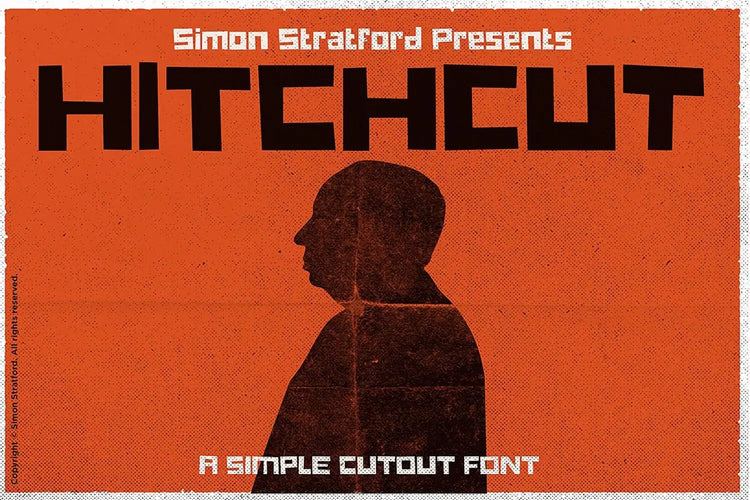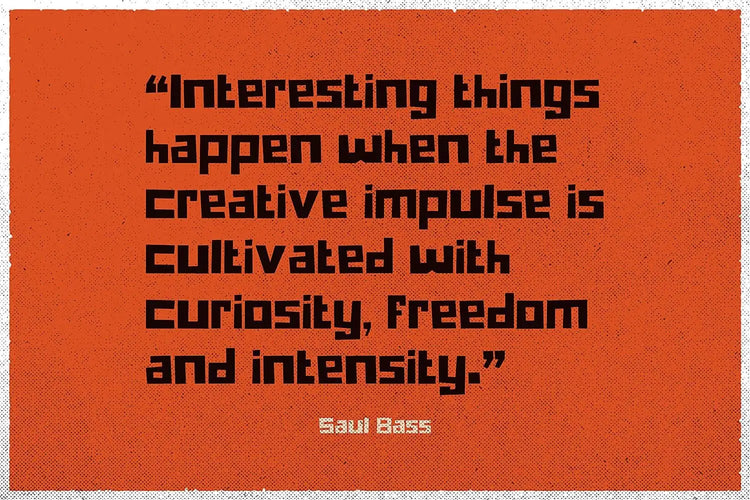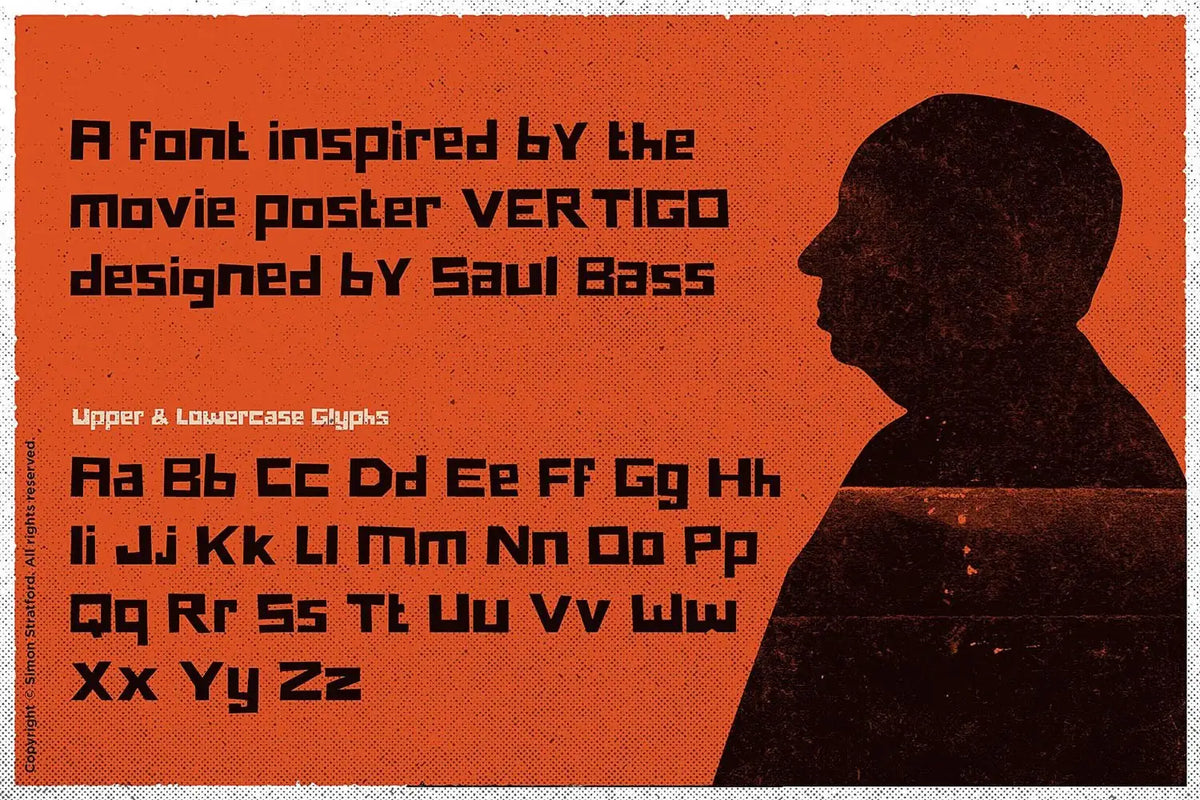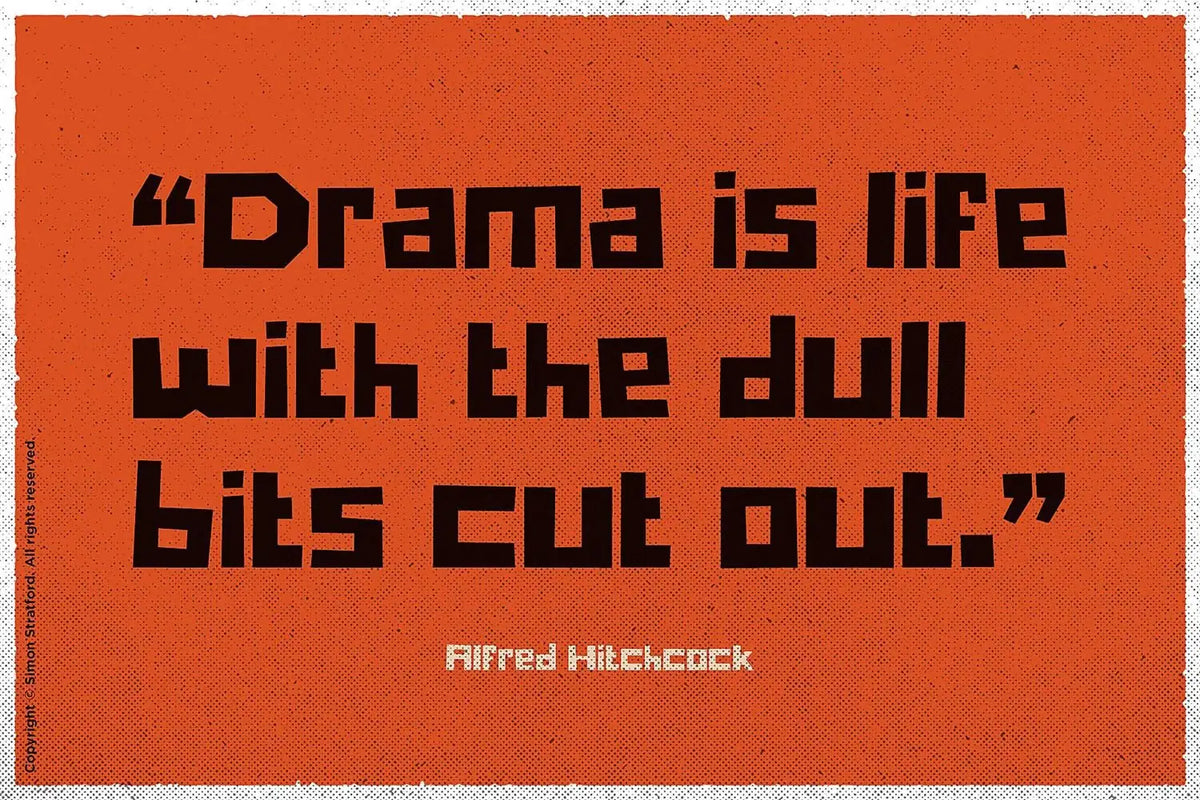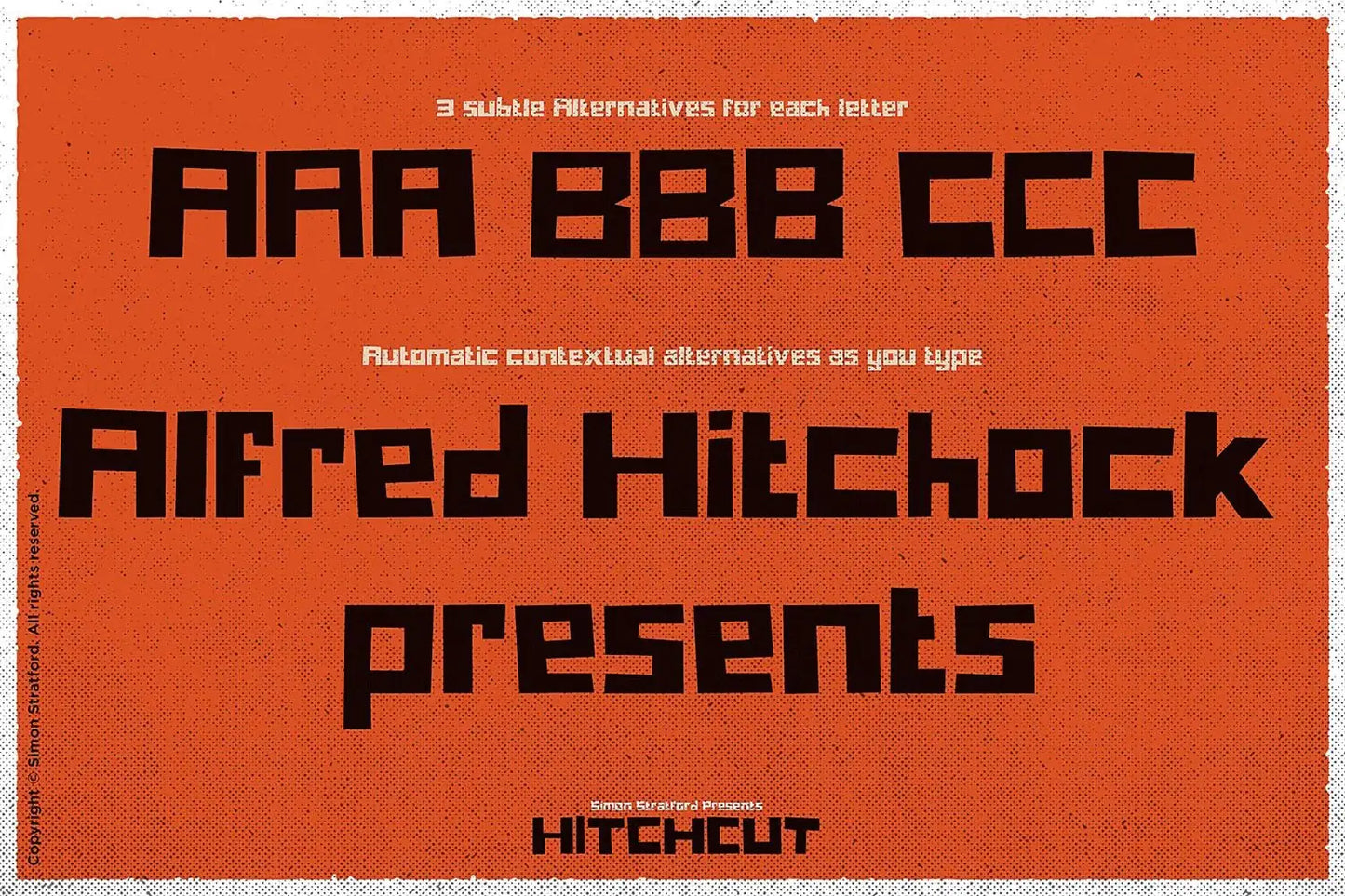
Hitchcut — Saul Bass-Inspired Bold Display Font
About Hitchcut font
Hitchcut font is my homage to the iconic movie poster 'Vertigo' by Saul Bass and Alfred Hitchcock, celebrating the art of simplicity. The name cleverly combines 'Hitchcock' and 'cut-out.'
Hitchcut font embodies a clean, cut-out aesthetic with its back-to-basic letterforms. It features straight lines reminiscent of hand-cut shapes.
It offers contextual alternatives for each of the 26 letters of the alphabet, with three alternative glyphs. By simply activating contextual alternatives, your text will dynamically alternate between these options, adding a random touch to your designs.
Hitchcut font includes:
- Letters, Numbers, Punctuation, and Symbols
- Three Contextual alternatives per letter